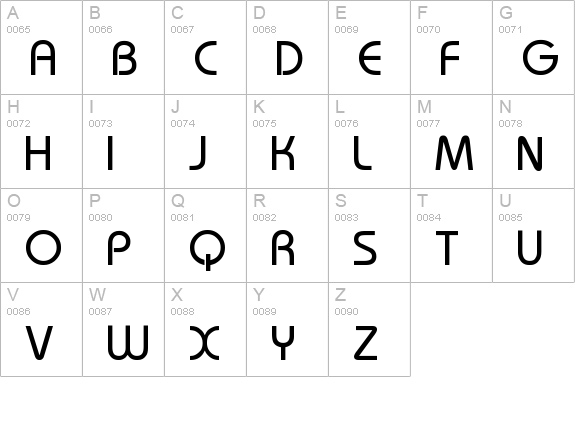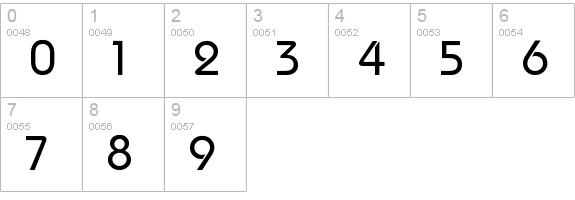
Casa Font Details
Casa font is a modern and sleek typeface that exudes elegance and sophistication. With its clean lines and stylish curves, Casa is perfect for a wide range of design projects, from branding to editorial design. The font features a unique blend of classic and contemporary elements, making it versatile and eye-catching. What sets Casa font apart is that it is available for free download at FontsMarket.com. This means that designers and creatives can easily access this high-quality typeface without any cost, making it an excellent choice for budget-conscious projects. Whether you're working on a logo, website, or print materials, Casa font will elevate your design and give it a touch of refinement. Download Casa font today and add a touch of sophistication to your next project.